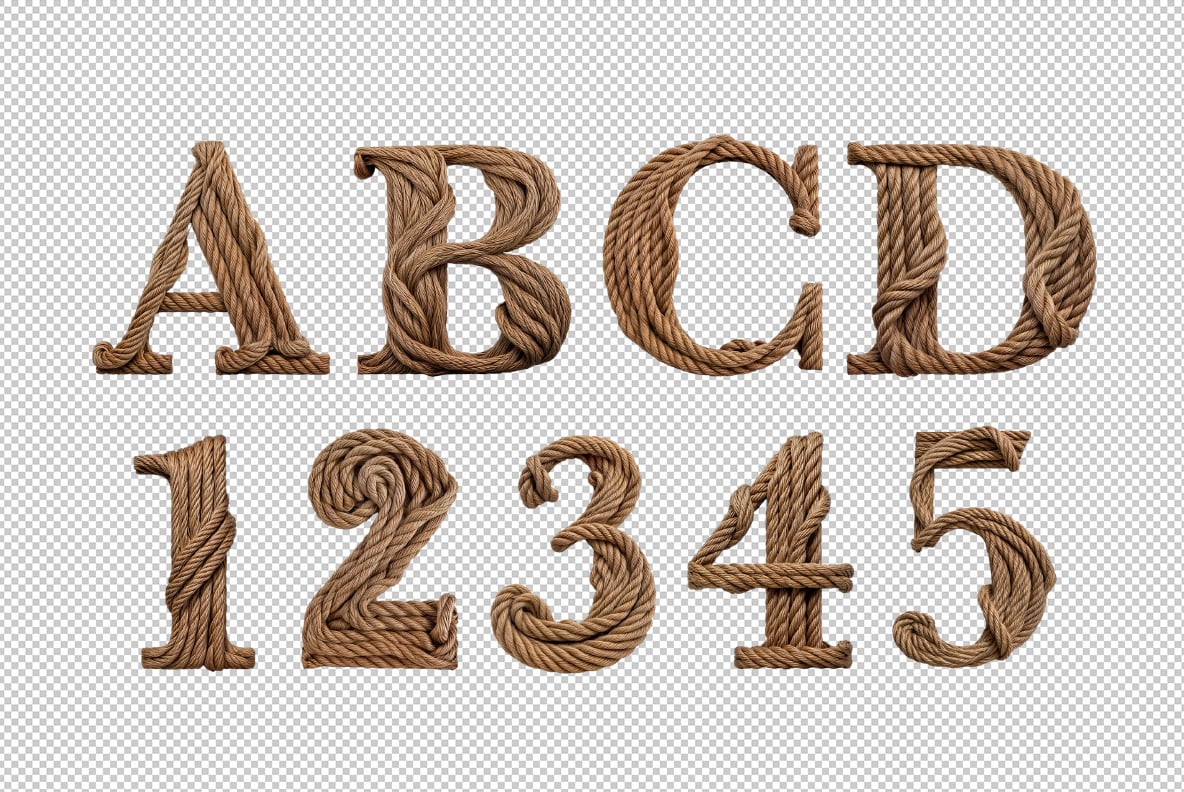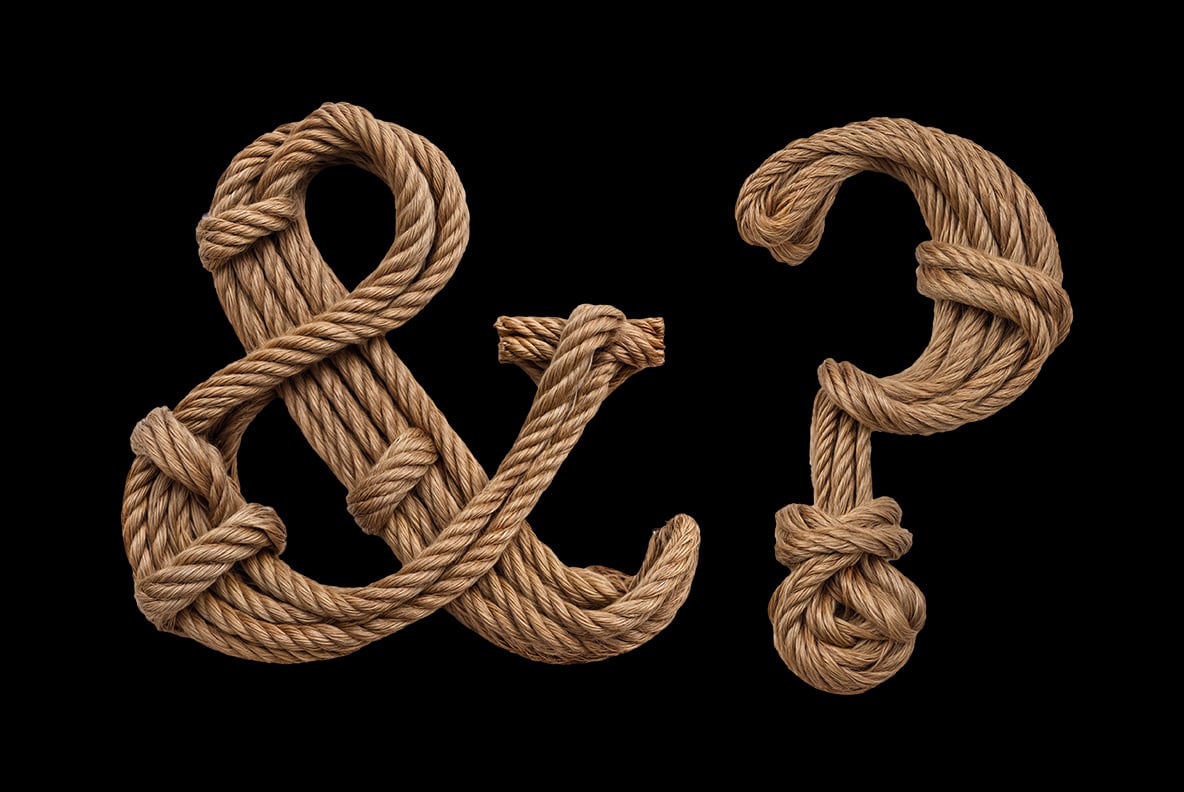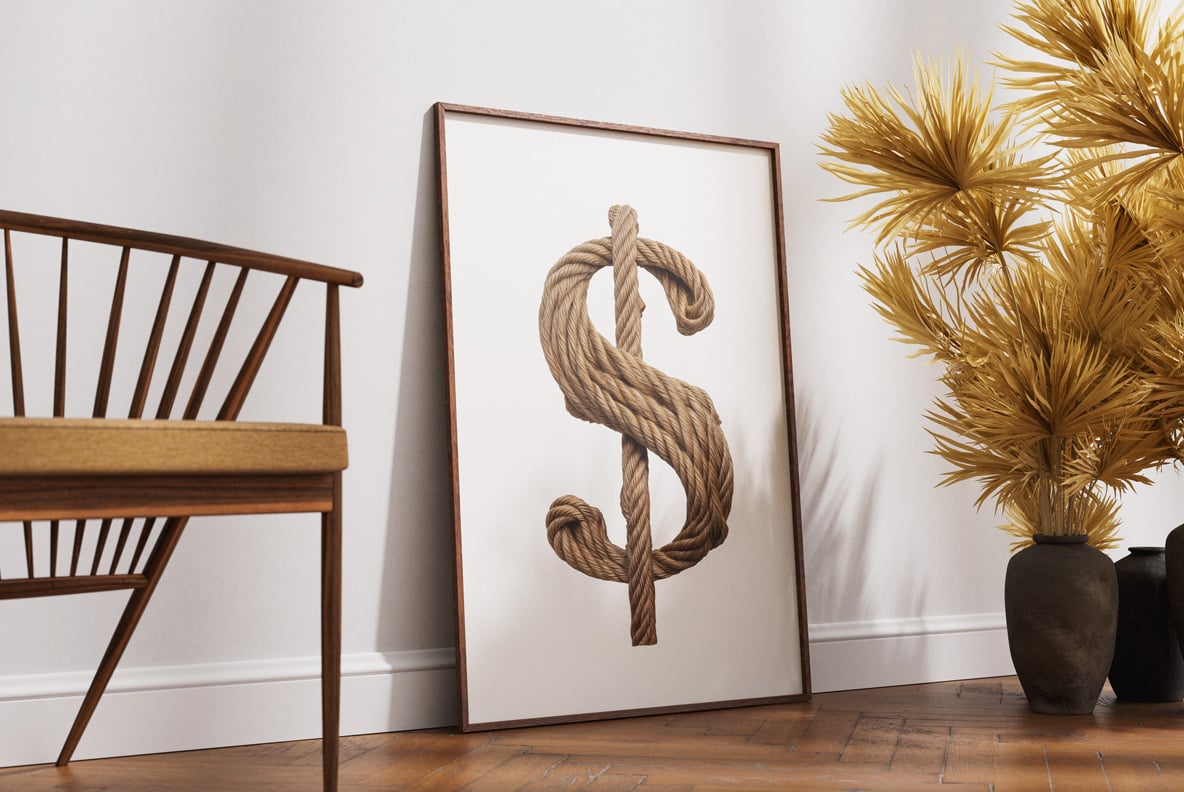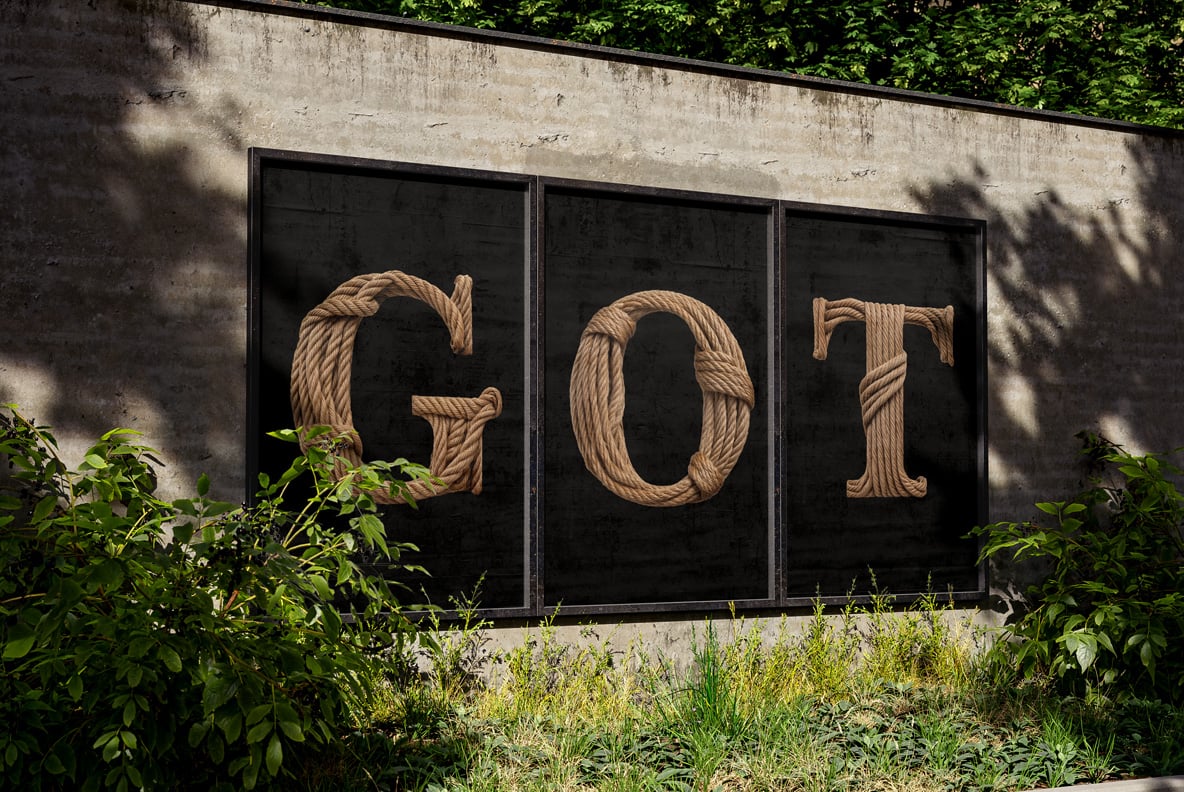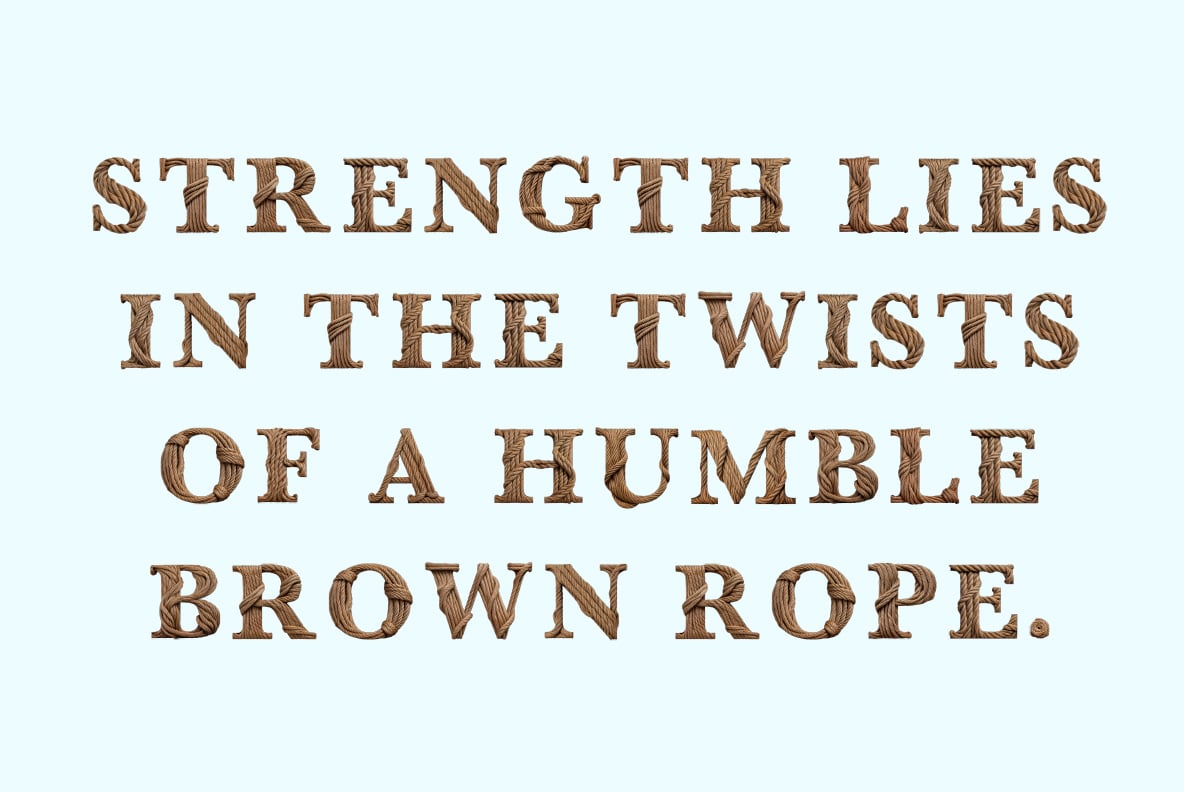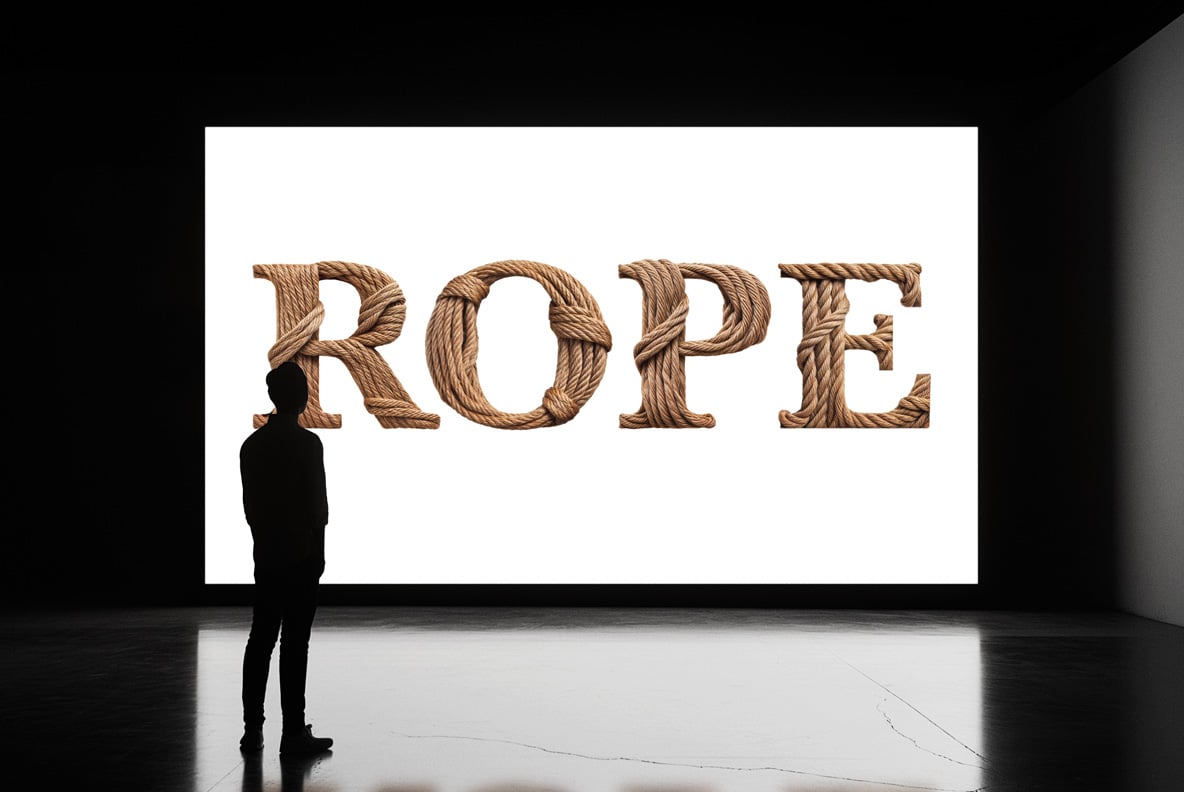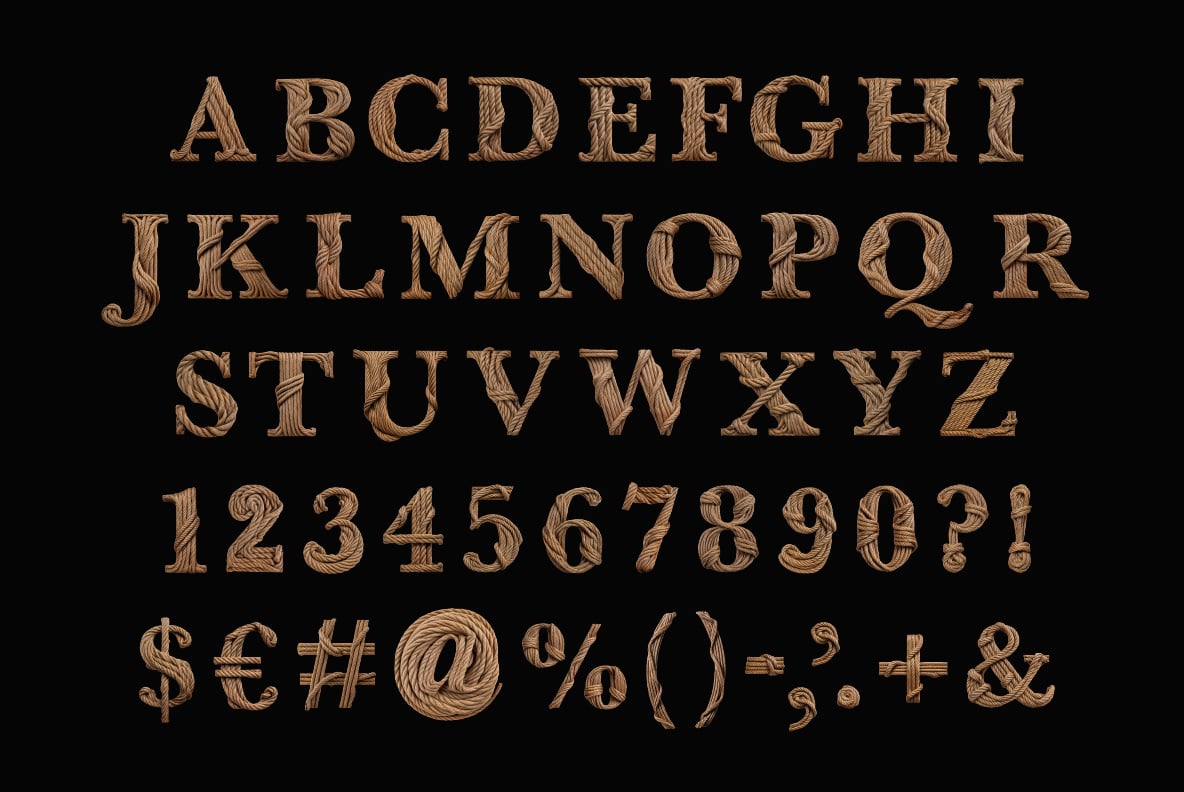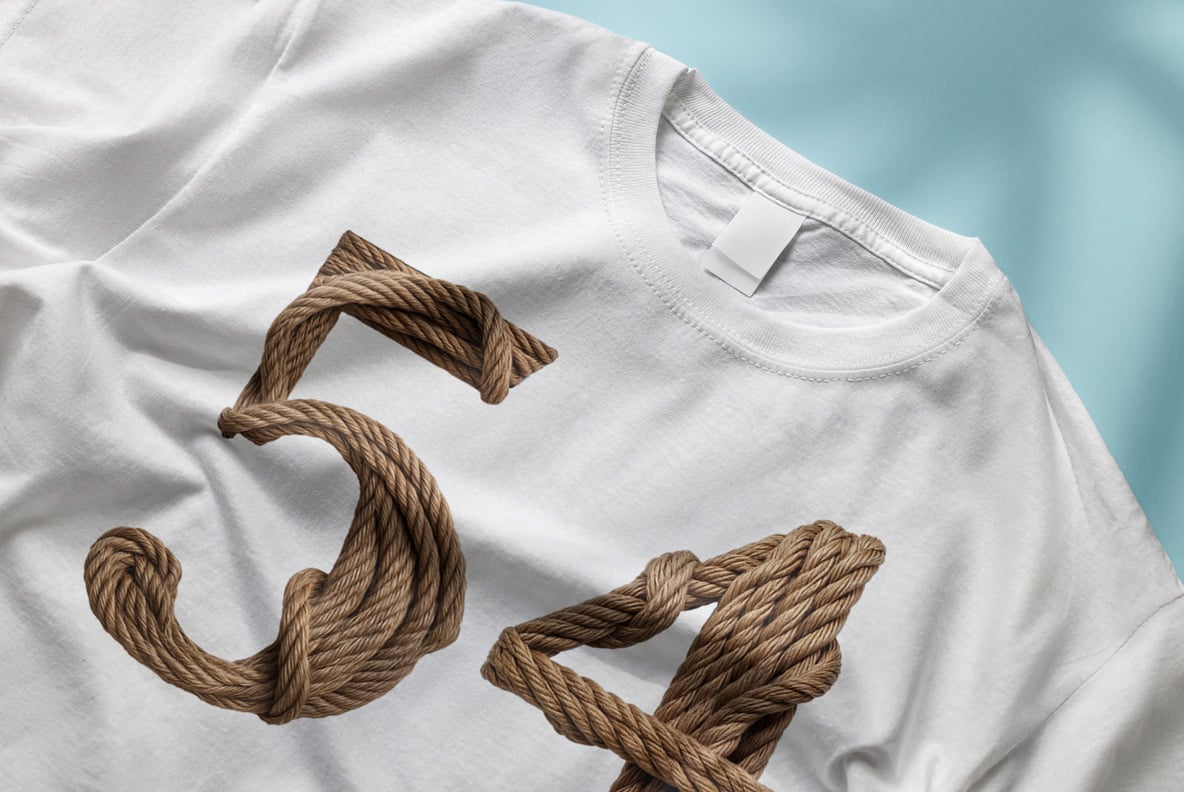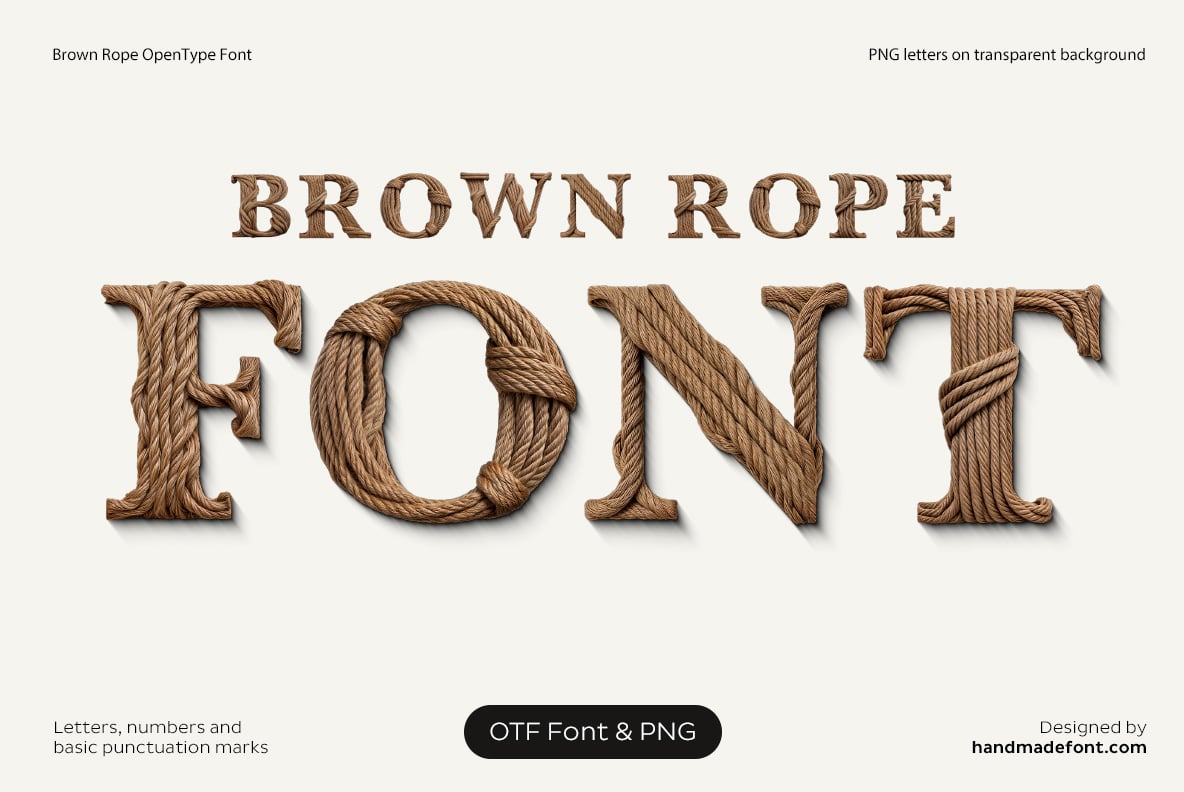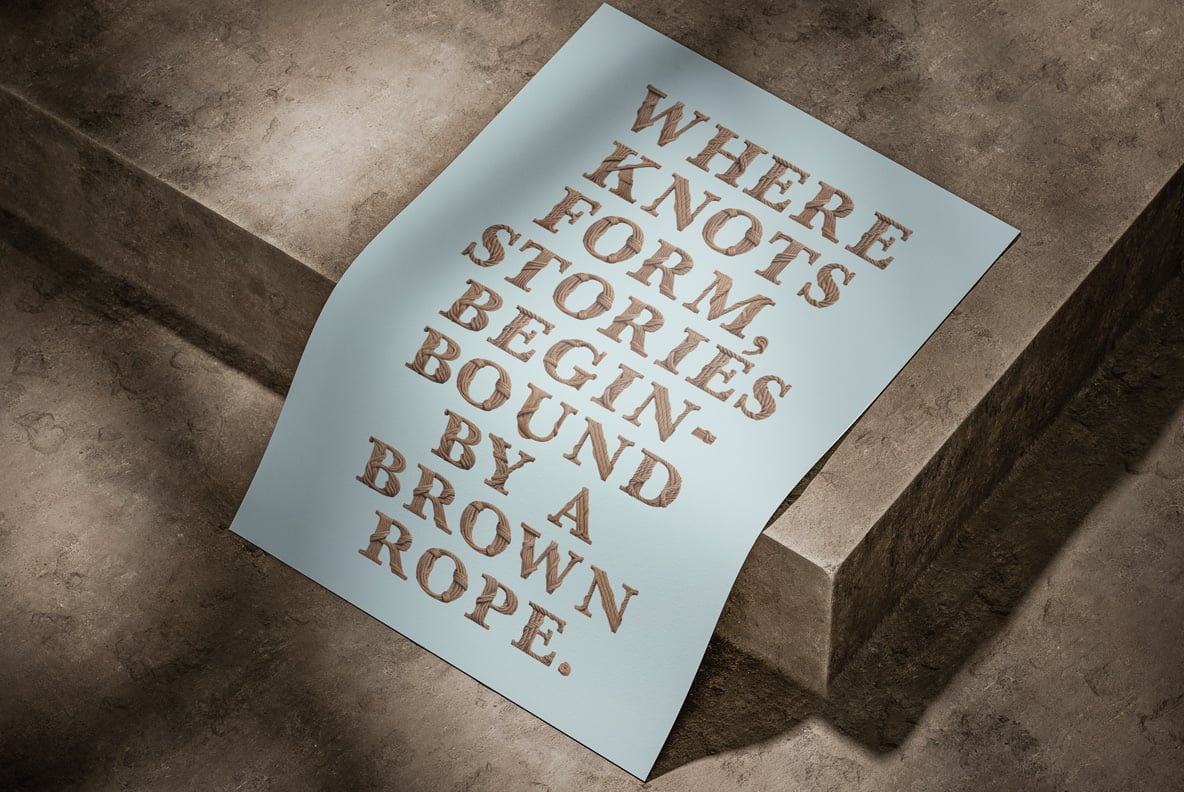
Brown Rope Font
More than just a font, the *Brown Rope Font* weaves creativity and craftsmanship into every letter. Each character is meticulously shaped from thick, textured brown rope, twisted into elegant strands to form a distinct rope alphabet. The rope typography exudes a rustic charm, with intricate details that highlight its natural fibers. Rope lettering comes to life with subtle knots and loops, adding authenticity and a handcrafted appeal. Perfect for designs seeking a rugged or nautical touch, this rope-inspired font brings warmth and texture to any project, making it a standout choice for logos, signage, and creative displays.